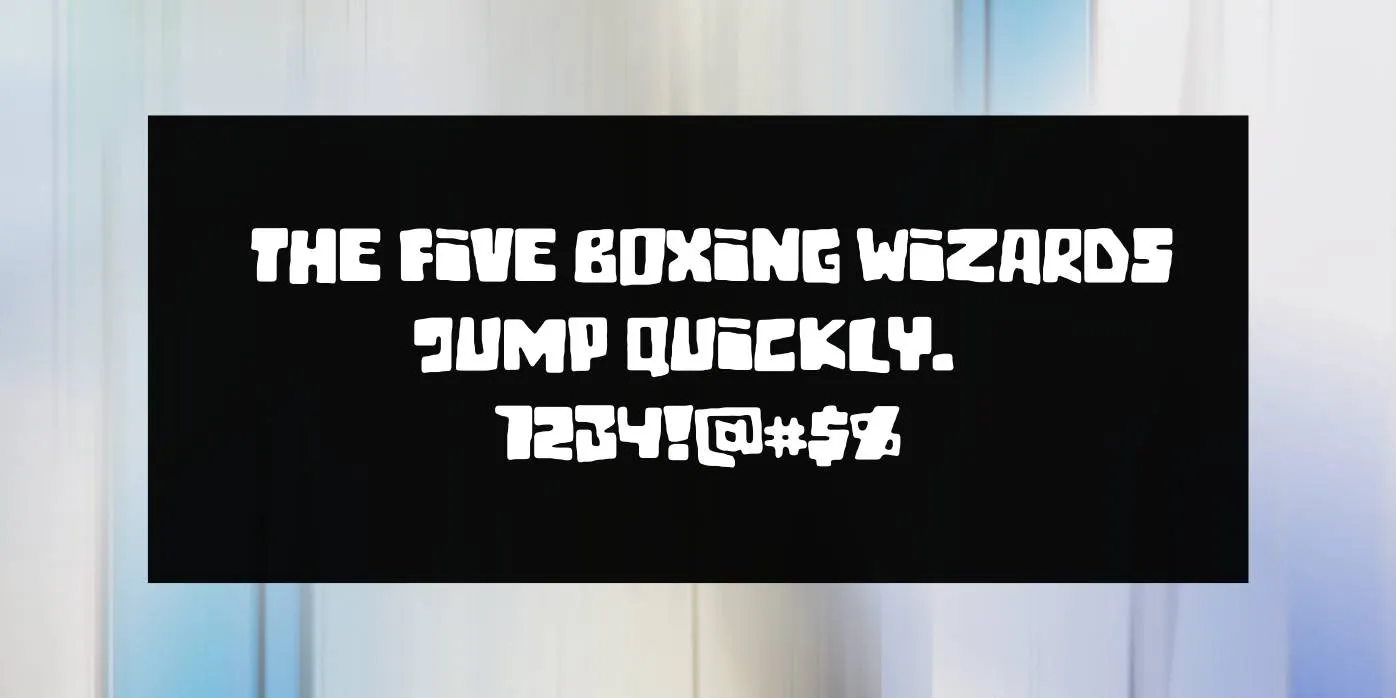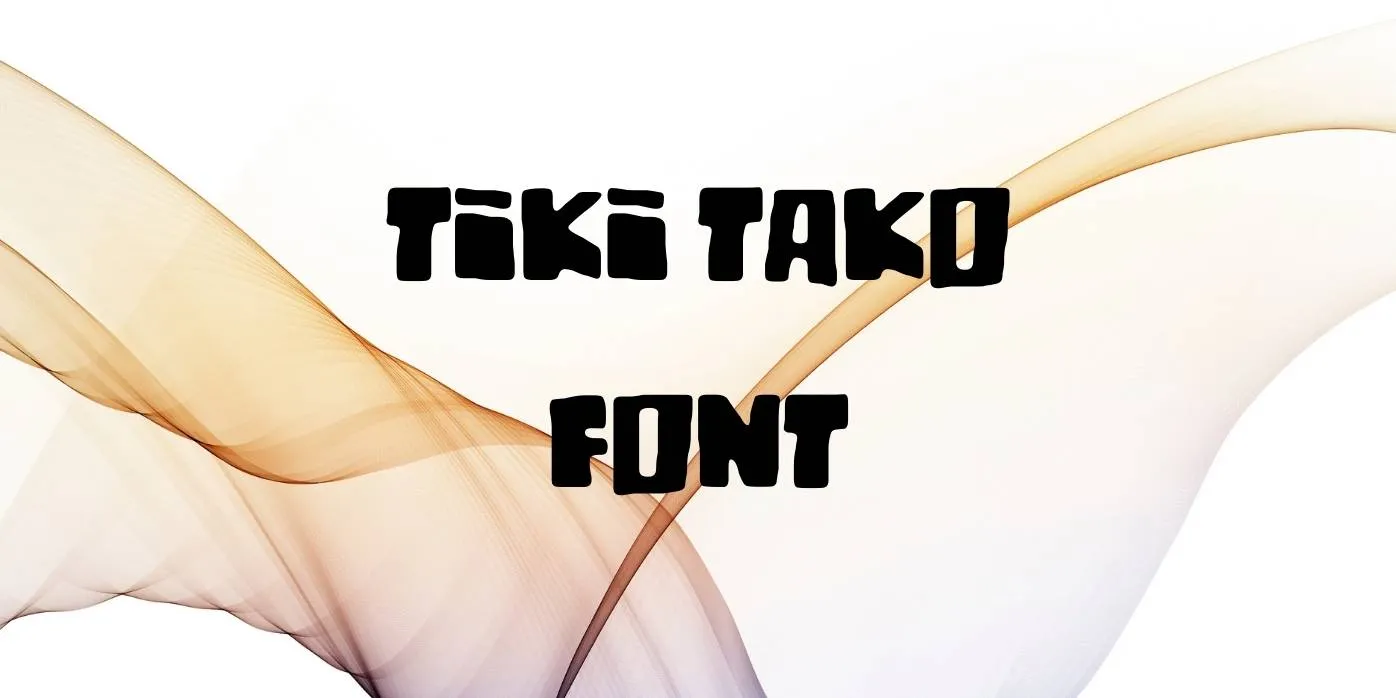
Tiki Tako Font
Tiki Tako Font is a decorative font that was designed by Woodcutter. The font was inspired by the Hawaiian Tiki culture and the Polynesian tattoo art. The font is perfect for adding a tropical and exotic feel to your designs. The Font includes uppercase and lowercase letters, numbers, and symbols.
The font is available in two styles, Regular and Bold. The Regular style is ideal for body text, while the Bold style is perfect for headlines and titles. You can give your designs a marvelous touch then try to pair cambo font and make your designs astonishing. If you’re looking to add a touch of paradise to your designs, then the Font is a perfect choice!
This typeface contains multilingual support for Western, Central, and South Eastern European languages.